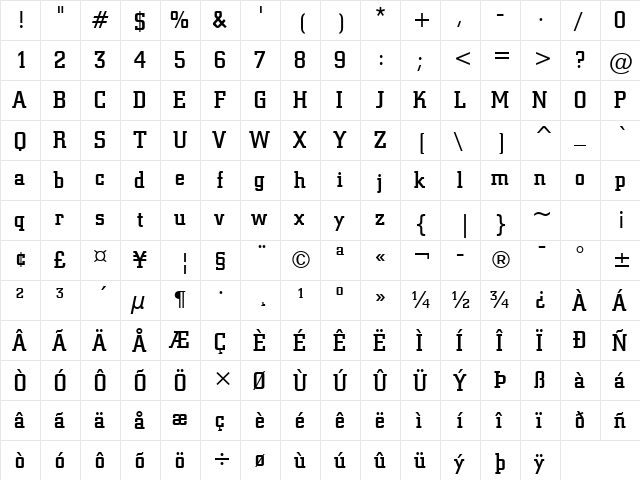
SquareSlab711 Lt BT Medium
Design Context for SquareSlab711 Lt BT Typeface
SquareSlab711 Lt BT features prominent, blocky serifs that give it a confident, grounded presence — equally at home in editorial settings and bold branding work. Its slender proportions lend an understated elegance to any composition.
Suited to magazines, political campaign materials, bold packaging, and any setting where authority matters.
Pro Tip: Use SquareSlab711 Lt BT for headlines and subheadings where its slab serifs can make an impression. It also holds up well in mid-size body copy thanks to its sturdy construction.